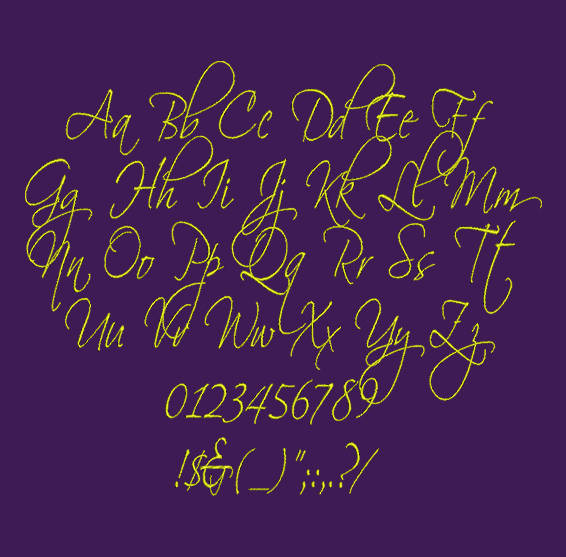
Old Script Font - Scriptin Machine Embroidery Font Now Includes BX Format!
Title: Scriptin machine embroidery font
This scriptin font is perfect for personalizing clothes, bags, towels and linens!